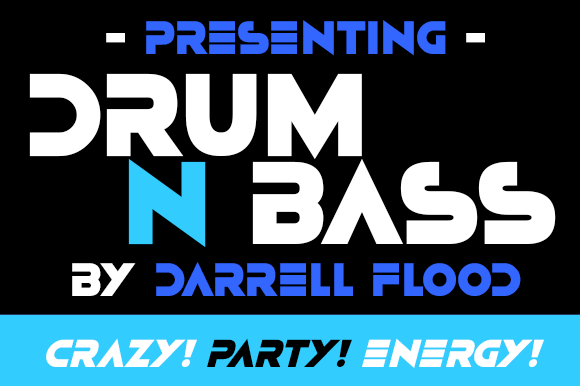
Drum N Bass Font: The Ultimate Choice for Tech and Music Events
Are you looking for a font that screams energy, excitement, and a dash of edginess? Look no further than the Drum N Bass Font! This bold, party event font is designed to make a statement, with a slick, “cut-away” style that gives it a unique and eye-catching appeal. In this article, we’ll dive into the world of Drum N Bass Font, exploring its features, uses, and benefits for designers and crafters.
What is Drum N Bass Font?
Drum N Bass Font is a bold, sans-serif font with a distinctive “cut-away” style, where pieces of various characters are missing for visual effect. This font is perfect for creating attention-grabbing headlines, titles, and slogans for tech, future themes, and large music events. The sharp points that accentuate key letters add an extra layer of edginess, making it an ideal choice for designers who want to create a bold and dynamic look.
Key Features of Drum N Bass Font
- Bold and eye-catching: Drum N Bass Font is designed to make a statement, with bold lines and sharp points that grab attention.
- Unique “cut-away” style: The font’s distinctive style, where pieces of characters are missing, adds a touch of edginess and visual interest.
- Perfect for tech and music events: Drum N Bass Font is ideal for creating promotional materials for tech, future themes, and large music events.
- Highly versatile: The font can be used for a wide range of design projects, from posters and flyers to social media graphics and website headers.
Drum N Bass Font offers a range of benefits for designers and crafters, including:
- Easily create attention-grabbing headlines: With its bold and eye-catching design, Drum N Bass Font is perfect for creating headlines that grab attention and draw the viewer in.
- Add an edgy touch to your designs: The font’s unique “cut-away” style and sharp points add an edgy touch to any design, making it perfect for designers who want to create a bold and dynamic look.
- Save time and effort: With Drum N Bass Font, you can create professional-looking designs in no time, without having to spend hours searching for the perfect font or trying to create your own custom design.
How to Use Drum N Bass Font
Using Drum N Bass Font is easy! Here are a few tips to get you started:
- Pair it with a simple font: To create a striking contrast, pair Drum N Bass Font with a simple, sans-serif font for body text.
- Experiment with colors: Drum N Bass Font looks great in bold, bright colors, but feel free to experiment with different colors and gradients to create a unique look.
- Use it for headlines and titles: Drum N Bass Font is perfect for creating attention-grabbing headlines and titles, but you can also use it for other design elements, such as buttons and icons.
In conclusion, Drum N Bass Font is a bold, eye-catching font that’s perfect for tech, future themes, and large music events. Its unique “cut-away” style and sharp points add an edgy touch to any design, making it a great choice for designers who want to create a bold and dynamic look. With its versatility, ease of use, and range of benefits, Drum N Bass Font is a must-have for any designer or crafter looking to add a little excitement to their designs.
Get Ready to Make a Statement with Drum N Bass Font!